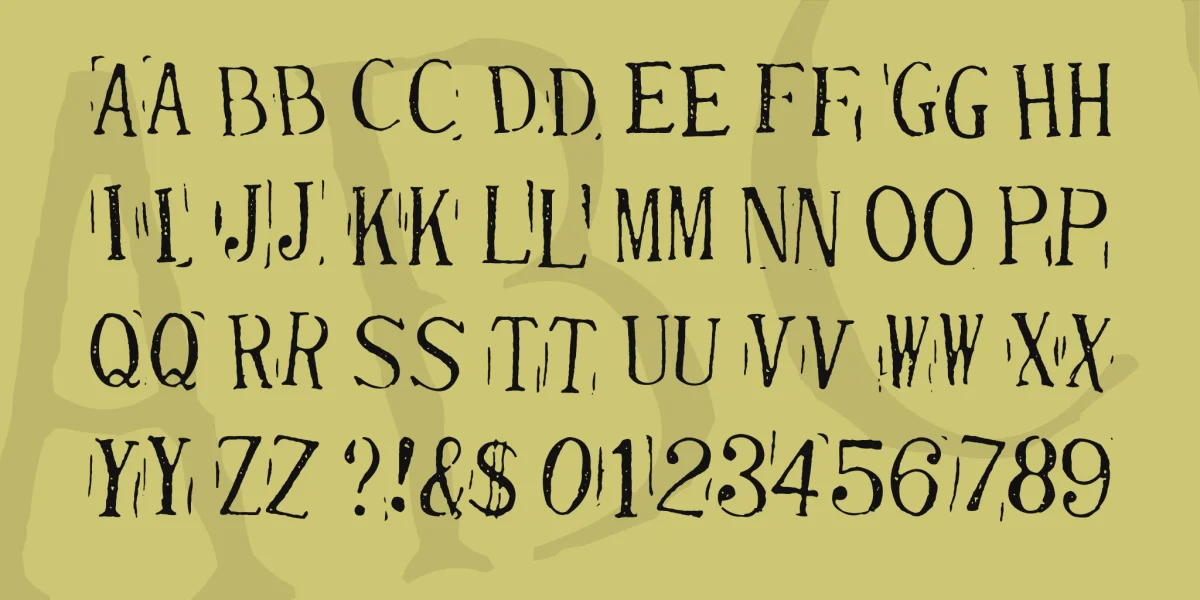
Made it from some stamps I found in my closet from when I was little. (Thank you for the reviews! The font was named after a song by Built to Spill :-) ).